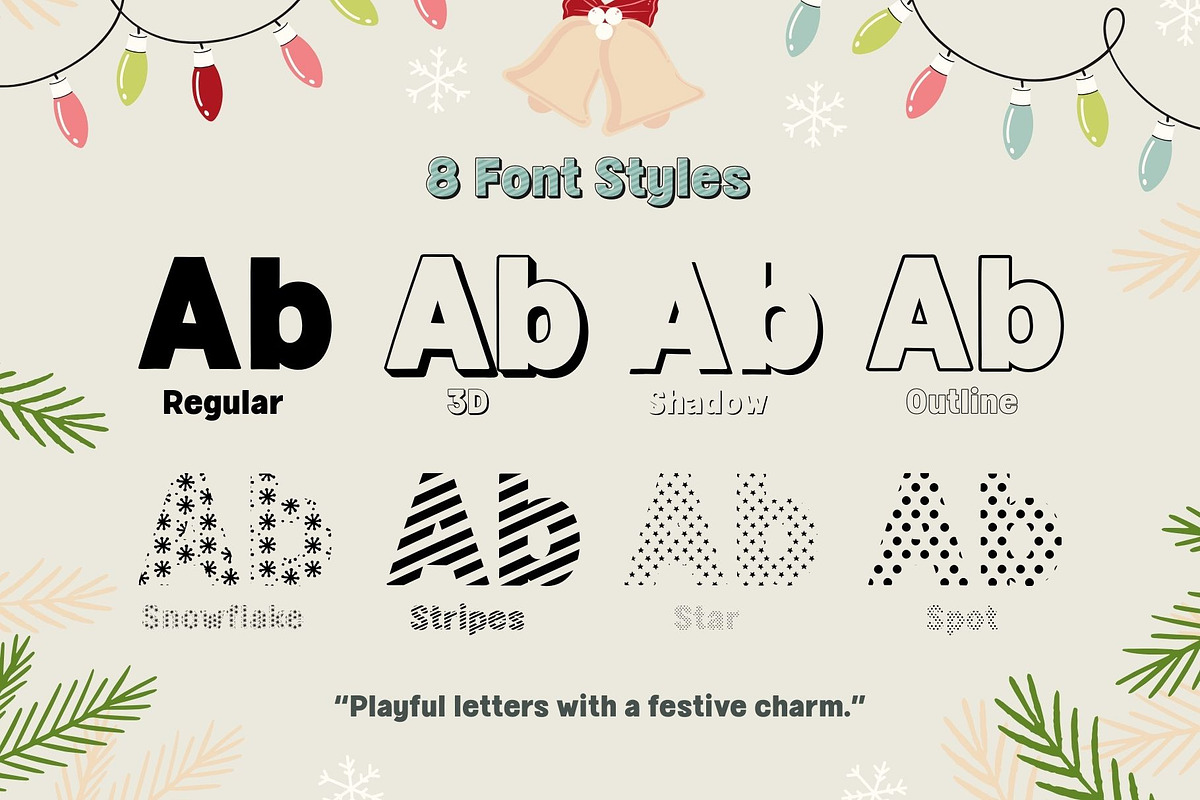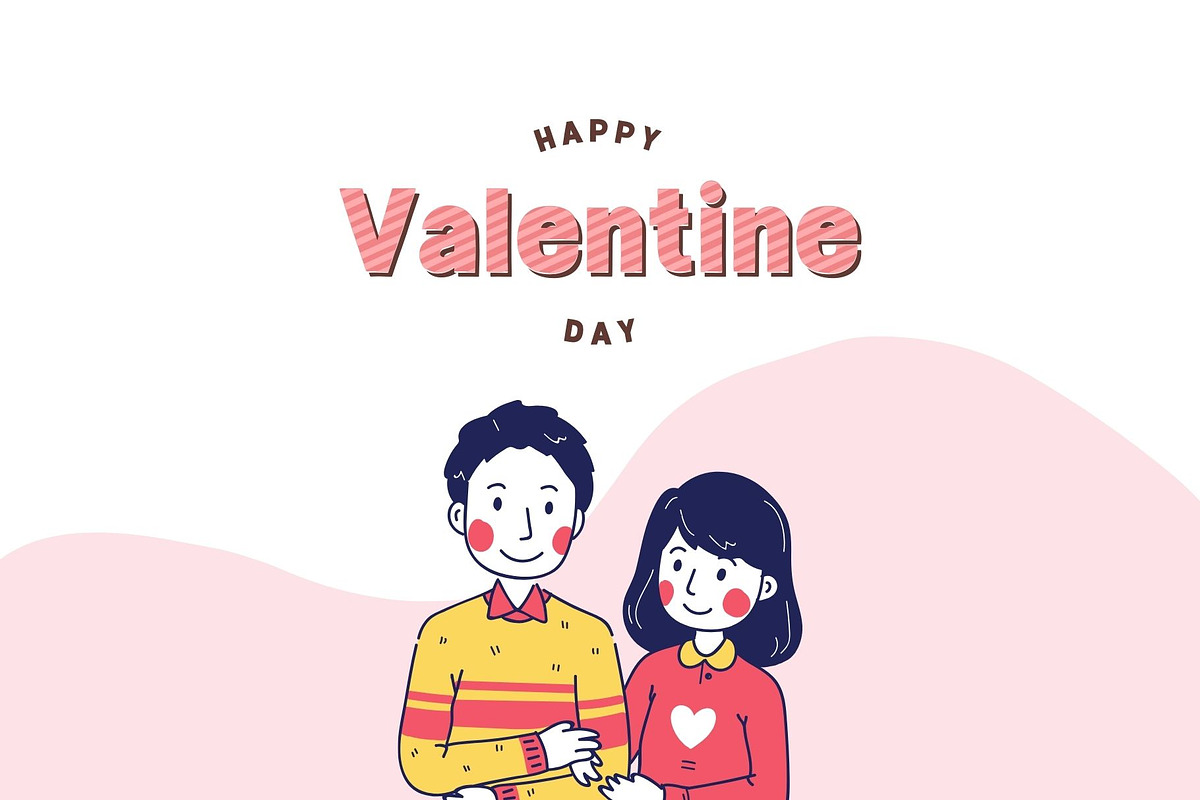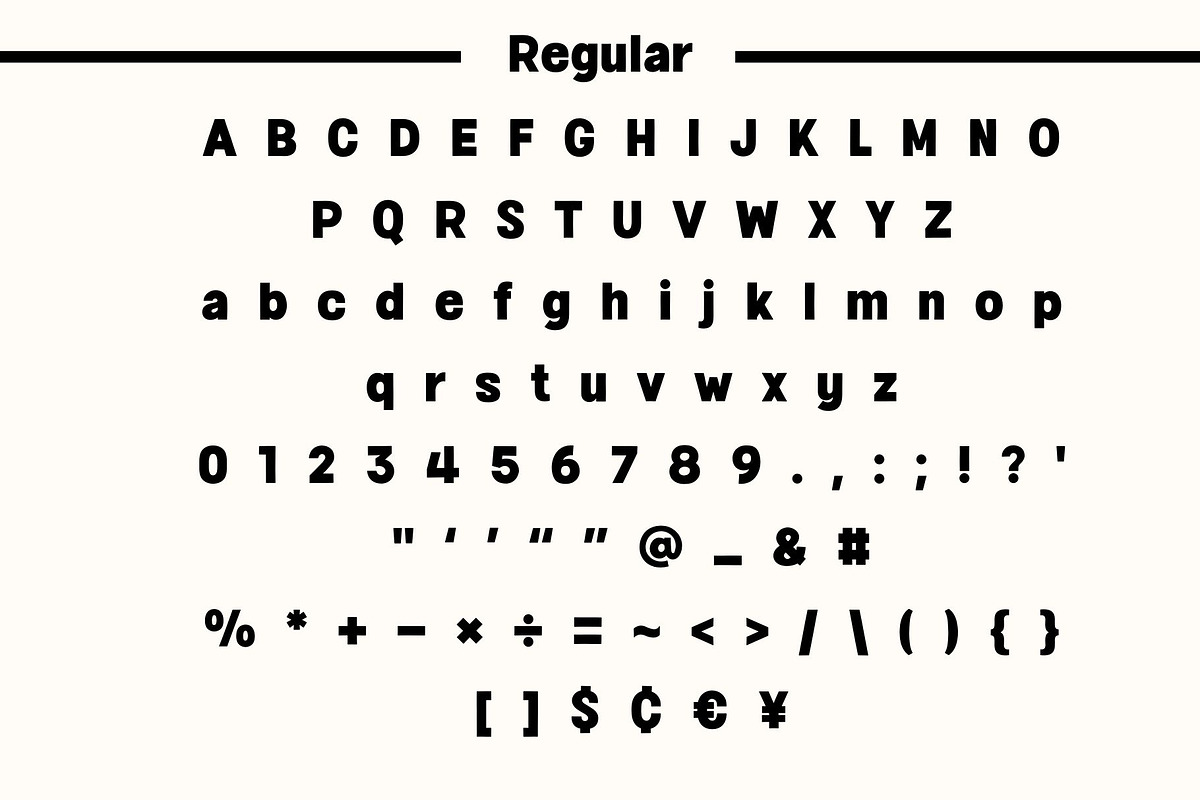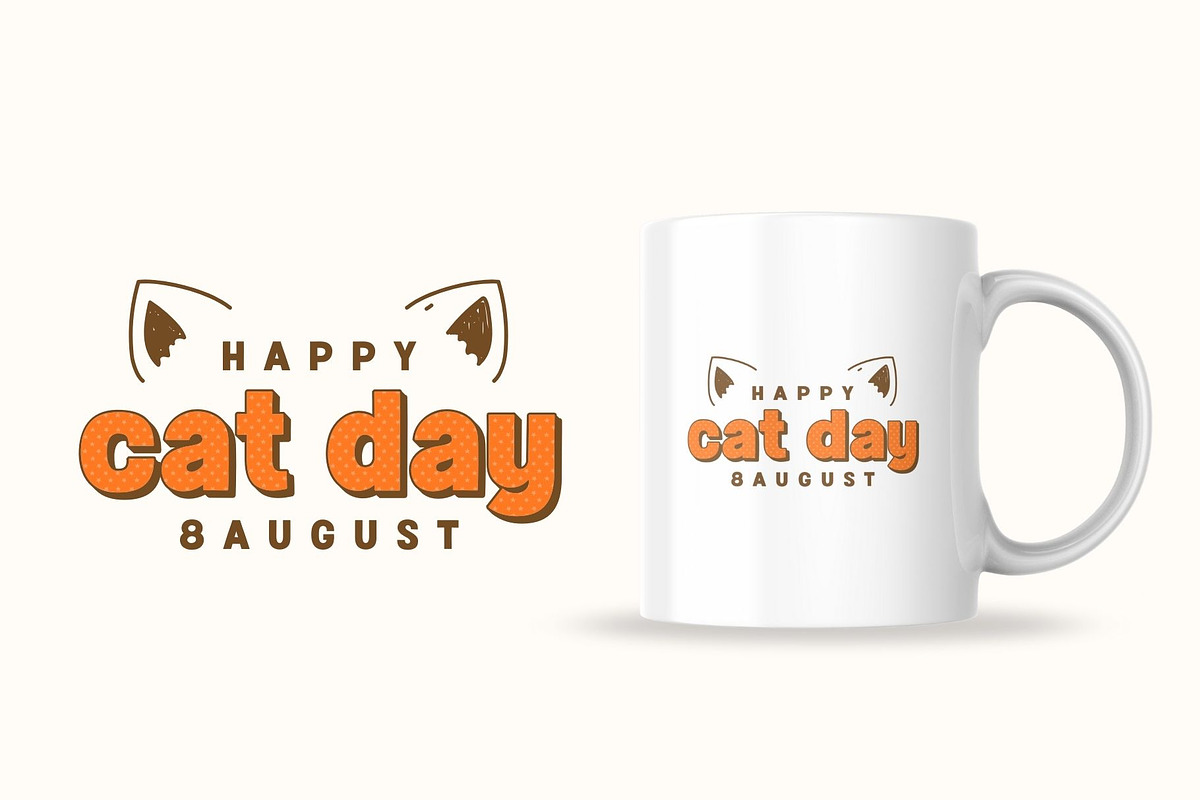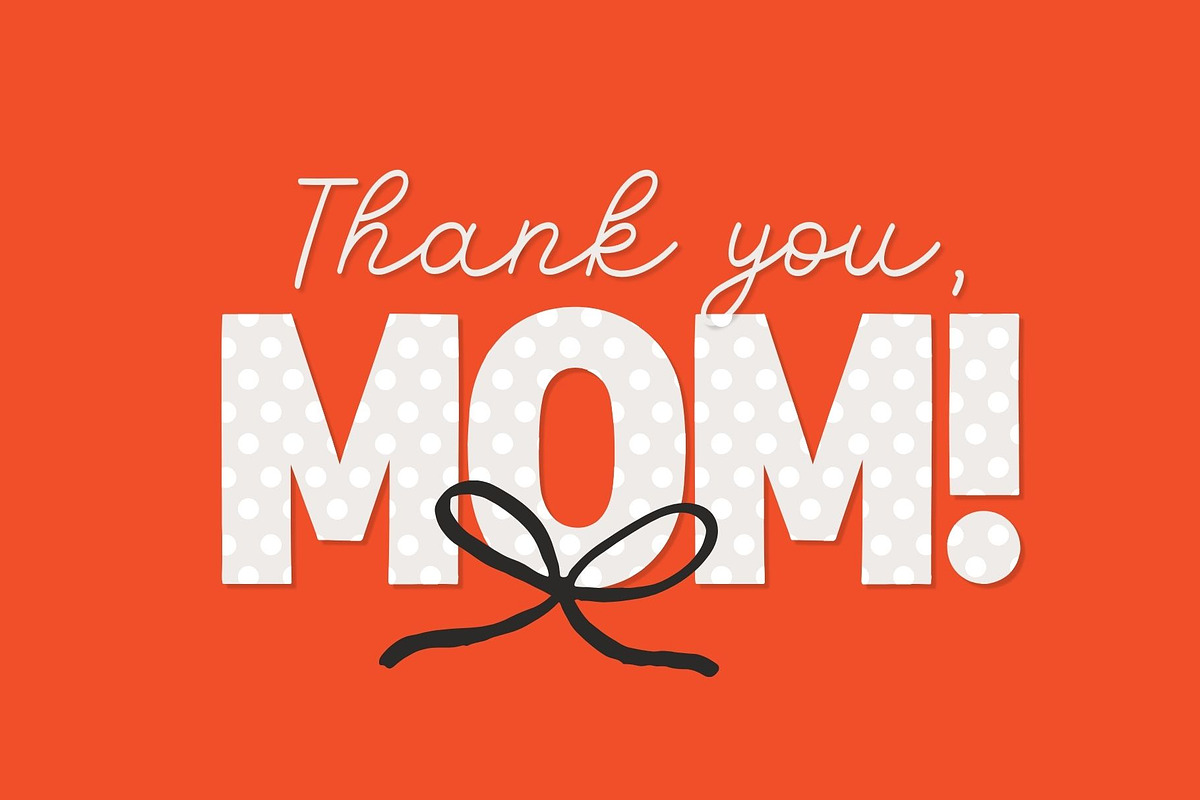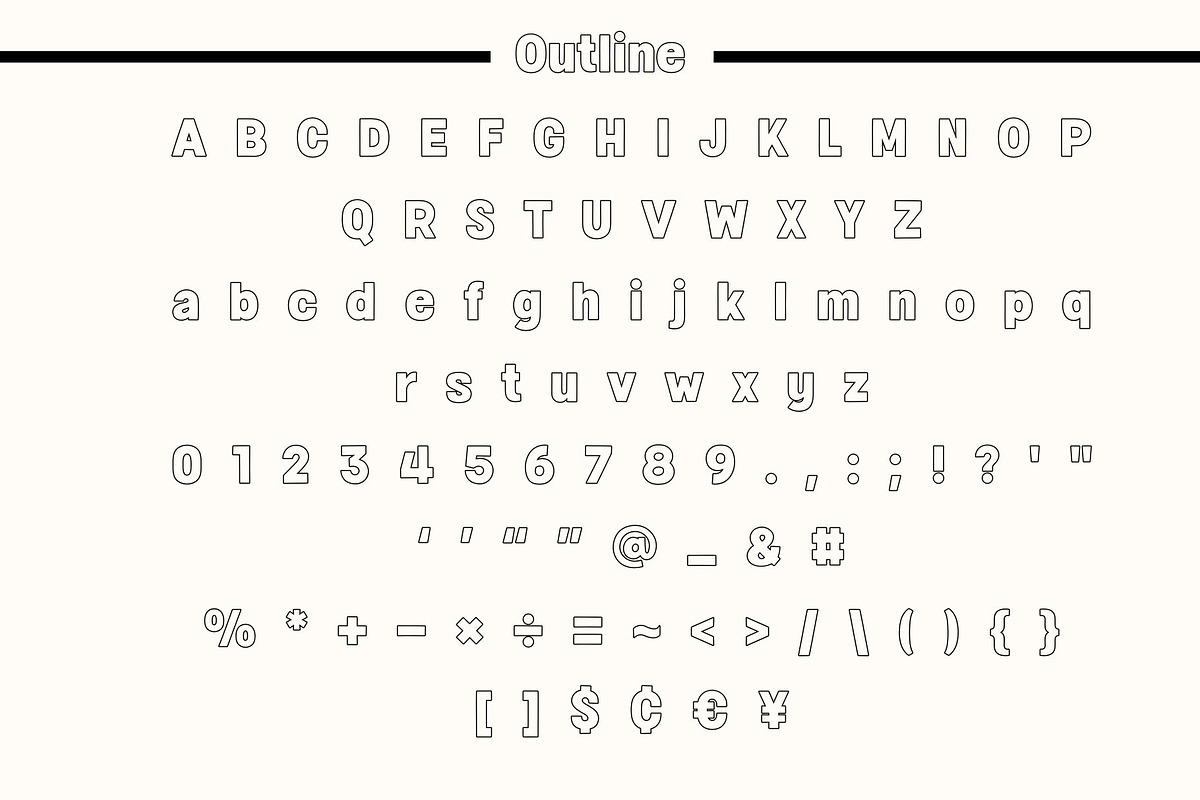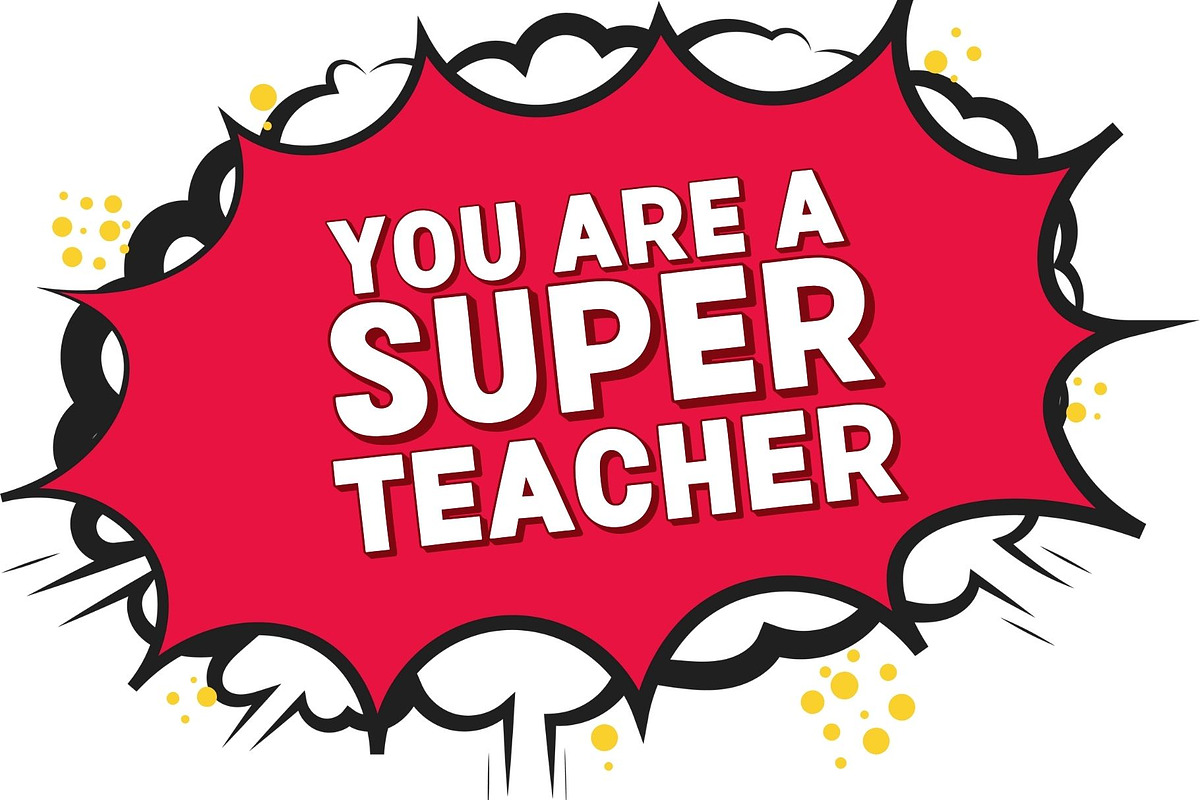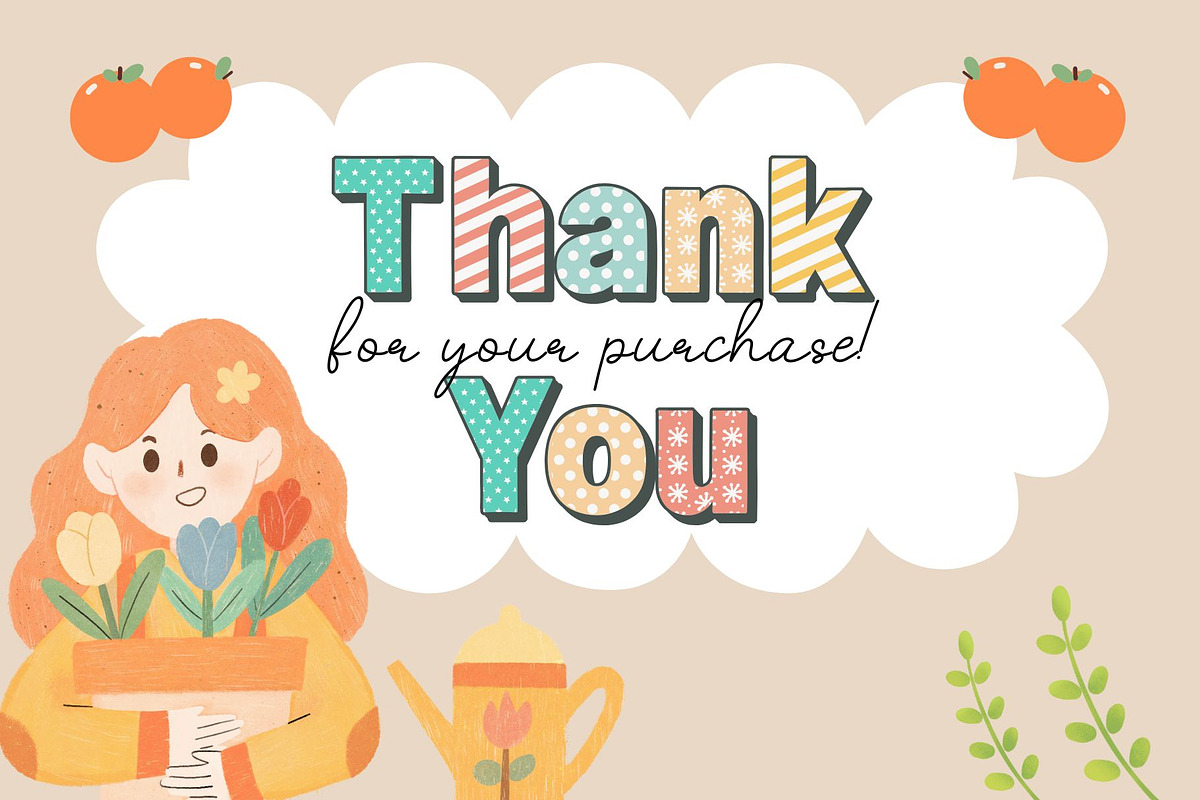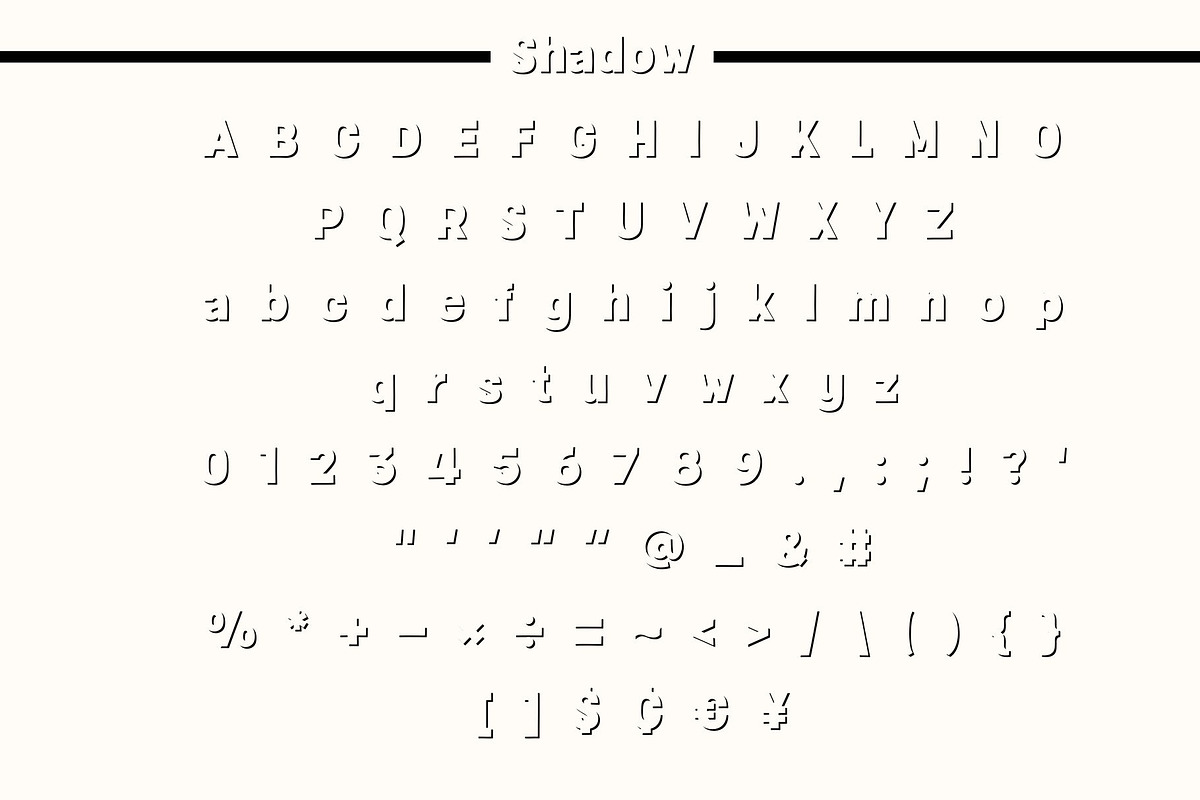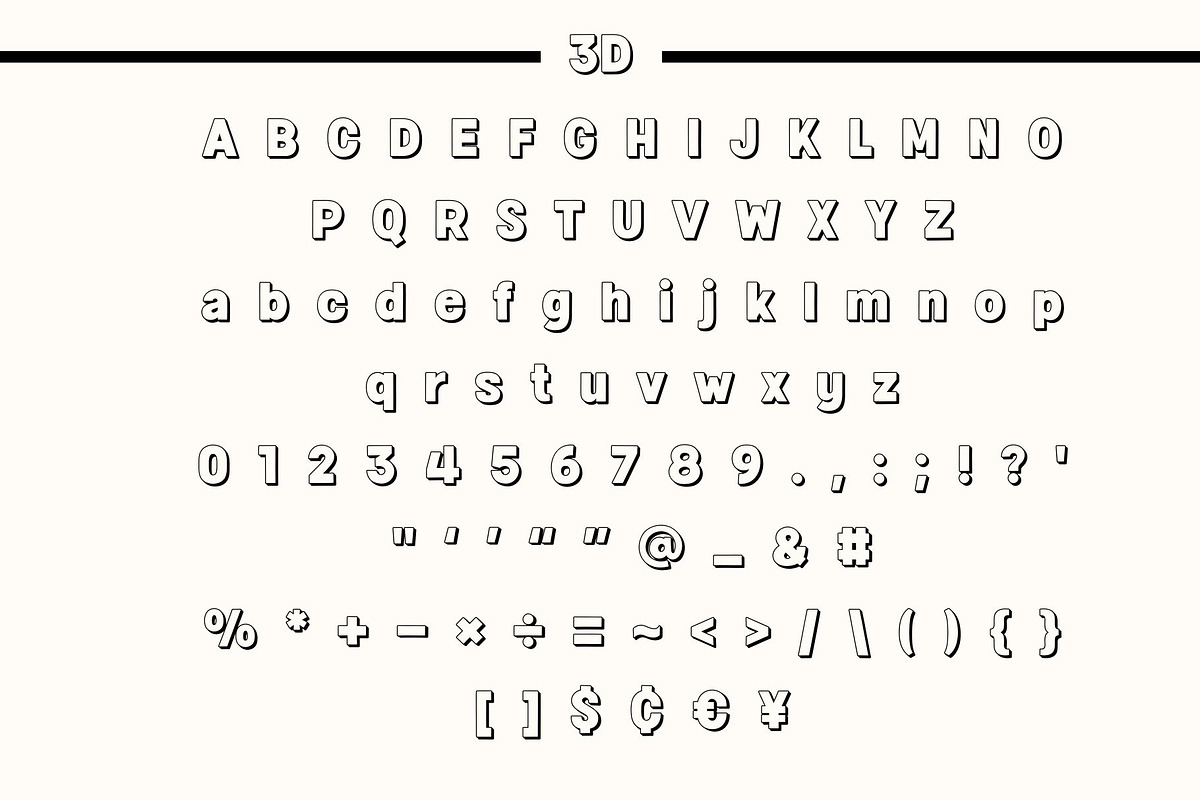
Fox Fresh : 8 Font Styles
Fox Fresh is a fun and cheerful display font designed to add a fresh, festive feel to your creative projects. Featuring bold, rounded letterforms and adorable decorative patterns, this font instantly brings warmth, joy, and holiday charm to any design.
This font includes 8 unique font styles: Regular, 3D, Shadow, Outline, Snowflake, Stripes, Star, and Spot. Each style is carefully crafted to give you flexibility and creative freedom, making it easy to create eye-catching typography with just one font family.
Fox Fresh is perfect for:
Christmas & holiday designs
Greeting cards & invitations
Kids projects & playful branding
Stickers, posters & packaging
Social media posts & digital graphics
Seasonal quotes and titles
Whether you’re designing for print or digital use, Fox Fresh delivers a cute, friendly, and festive look that stands out while remaining easy to read.
Add a joyful holiday vibe to your designs with Fox Fresh – a playful font full of festive charm.